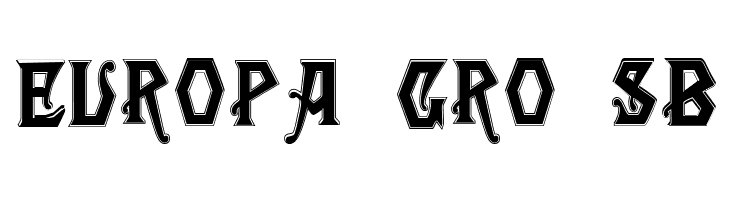
An ornate, floral-themed decorative font with intricate botanical details.
Vintage children vignette illustrations with detailed line art.
A bold, Gothic-inspired font with intricate details and angular forms.
A bold, angular font with inline details, perfect for impactful designs.
A bold, angular font with a striking shadow effect for a modern, three-dimensional look.
A bold, angular font with a geometric and futuristic style.
A collection of decorative symbols and emblems with intricate details.
An ornate and decorative font with intricate, swirling patterns and high contrast.
A bold, decorative font with intricate patterns and artistic flair.
A bold, decorative font with a strong, impactful design.
A bold, gothic-inspired font with sharp edges and decorative elements.
A bold, distinctive font with a blend of traditional and modern elements.
A bold, blackletter-style font with dramatic, angular strokes.
A classic blackletter font with ornate, angular letterforms and decorative flourishes.
A bold, slab serif font with strong vertical lines and high contrast.
A traditional blackletter font with ornate, gothic styling.
An ornate and decorative font with elaborate swirls and flourishes.
An ornate and decorative font with intricate patterns and a blackletter influence.
An intricate, decorative font with Celtic-inspired patterns and bold, framed letters.
A bold Blackletter font with dramatic strokes and intricate detailing.
A bold, blackletter font with intricate, angular designs ideal for dramatic and historical themes.
An ornate, medieval-inspired decorative font with intricate floral designs.
An elegant script font with intricate swashes and high contrast.
A bold Blackletter typeface with ornate, dramatic flourishes.
A bold, ornate blackletter font with Gothic flourishes and sharp angles.
A traditional Blackletter font with ornate, angular strokes and historical elegance.
A modern take on medieval script with sharp, angular strokes and a cohesive design.
A classic blackletter font with sharp, angular lines and high contrast, ideal for traditional and decorative uses.
An ornate, decorative blackletter-inspired font with intricate flourishes.
An ornate, Gothic-inspired font with intricate flourishes and blackletter forms.
A bold, decorative Blackletter font with intricate Gothic elements.
A bold, intricate Blackletter font with ornate and angular letterforms.
A traditional Blackletter font with ornate, angular letterforms and a vintage aesthetic.
A bold, medieval-inspired serif font with sharp, angular features.